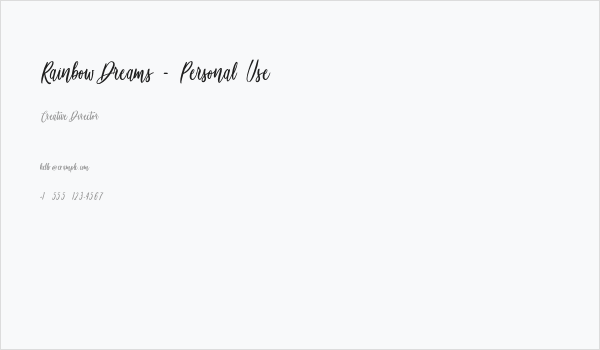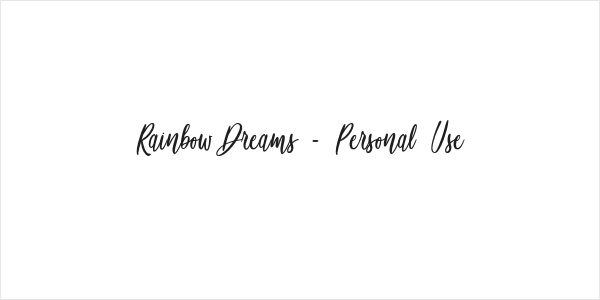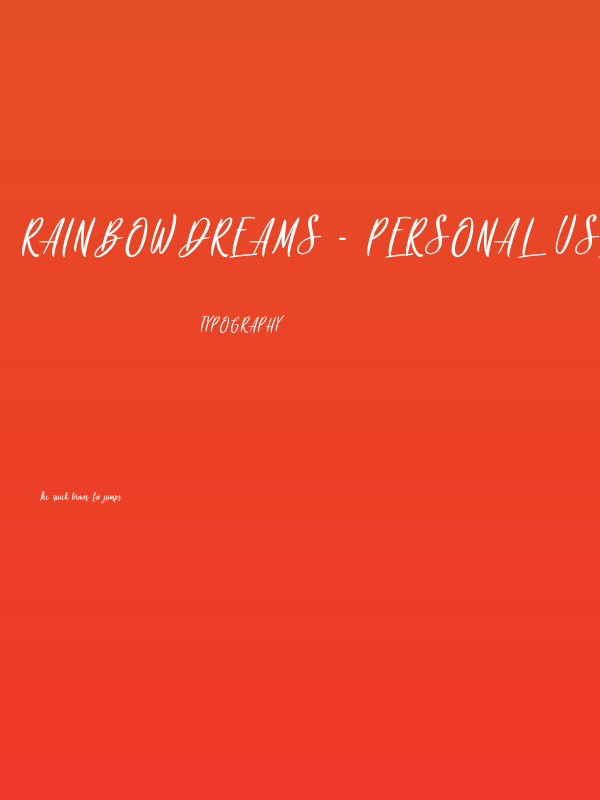
Rainbow Dreams - Personal Use Font
This font features a lively and flowing script style, characterized by its elegant and cursive letterforms. The uppercase letters are bold and slightly slanted, giving a sense of movement and dynamism. The lowercase letters maintain a consistent flow, with smooth connections between characters, enhancing the handwritten feel. The numerals are clear and legible, matching the overall script style. Special characters are included, maintaining the same fluidity and elegance. This font is perfect for projects that require a personal and artistic touch, such as invitations, greeting cards, and branding materials.
Use CaseLogos, Headlines, Artistic projects
Proposed ProjectsIdeal for invitations, greeting cards, branding materials, and artistic projects.